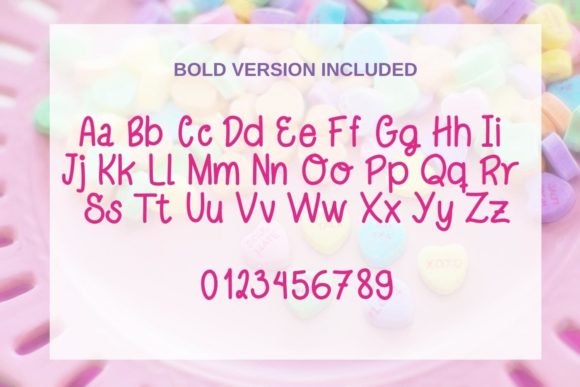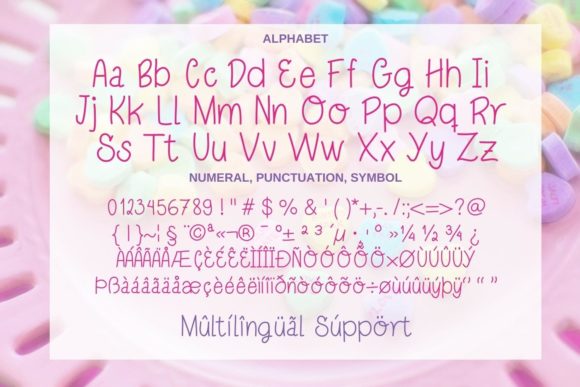
Basically Sweet Font
db-ku.com - Script & Handwritten -- Basically Sweet in a cute and beautiful handwritten font, perfect for fun designs, quotes, branding, logos, children’s designs, invitations and more!